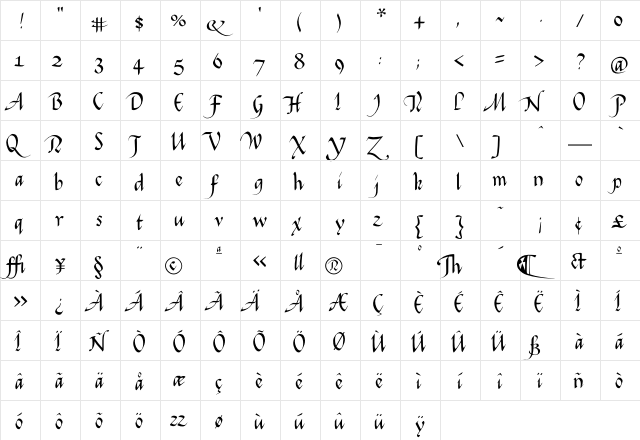
Flourish Regular Font Preview
Flourish Regular
Flourish Regular Font Details
| Year | 1988 |
Design Context for Flourish Typeface
Flourish is a composed and adaptable typeface that performs quietly and consistently across a wide range of design contexts.